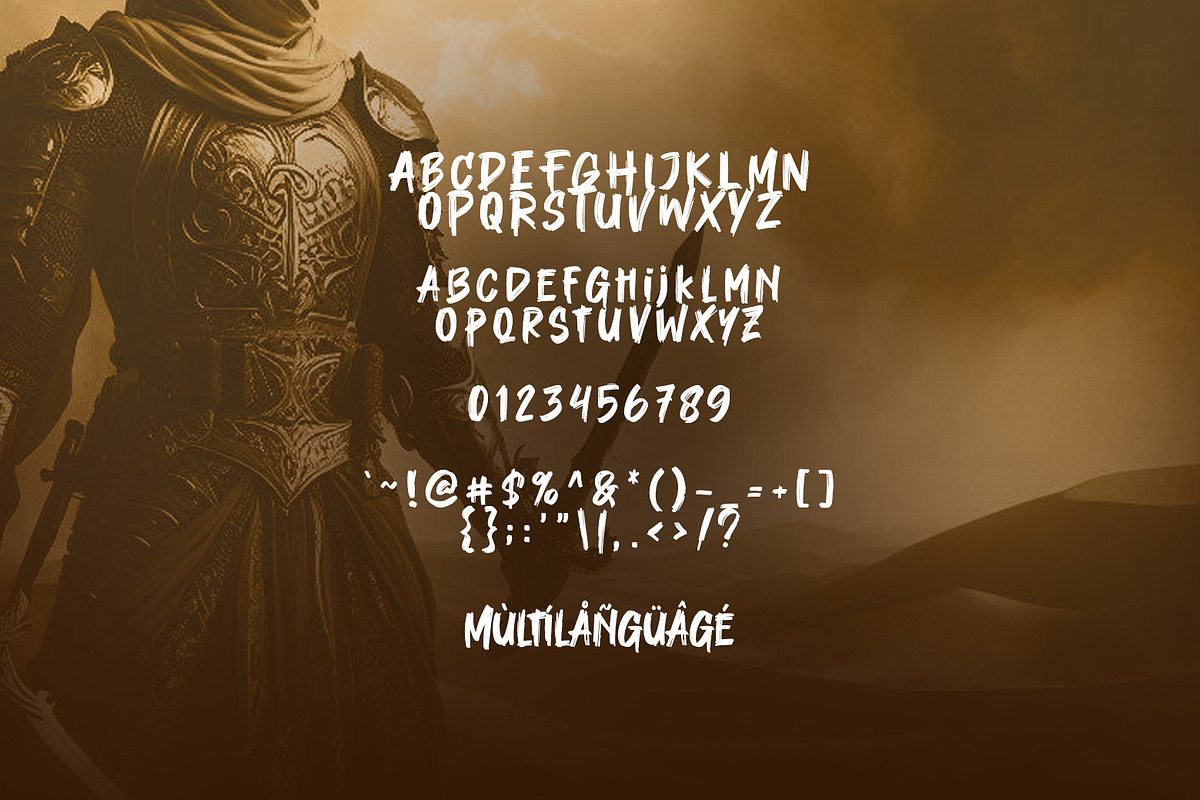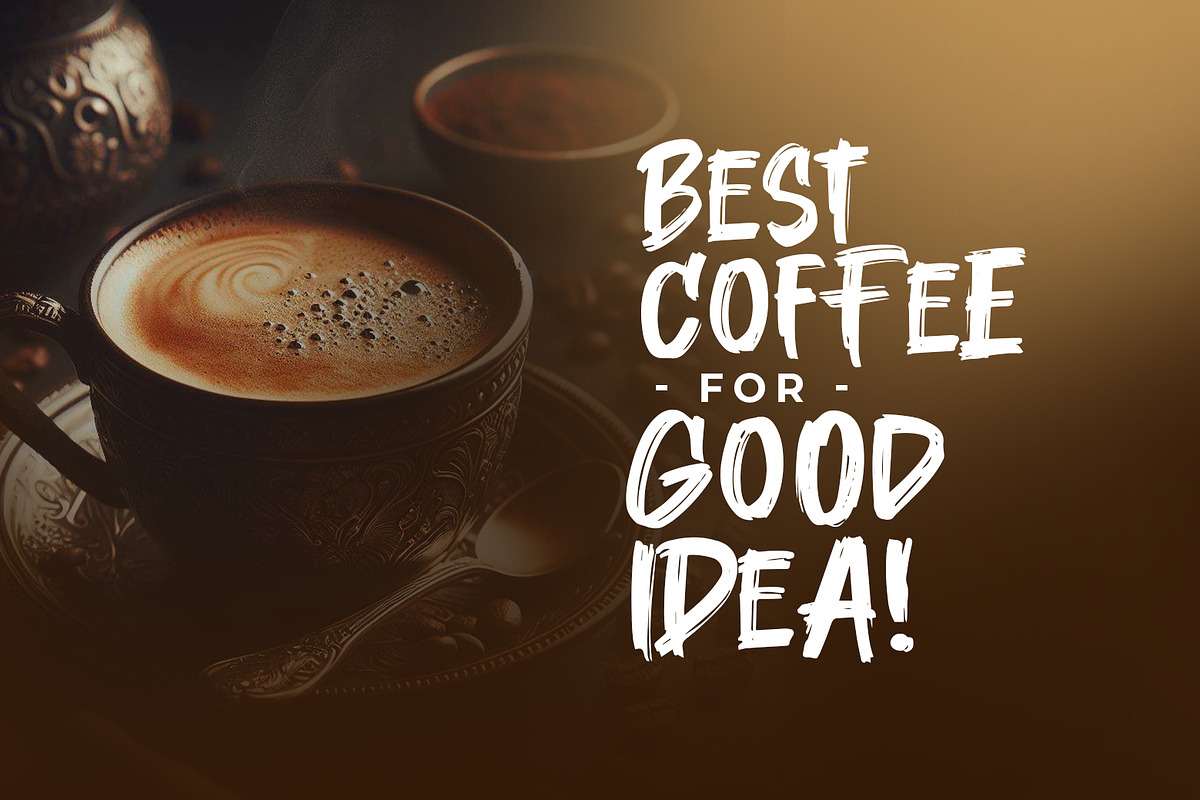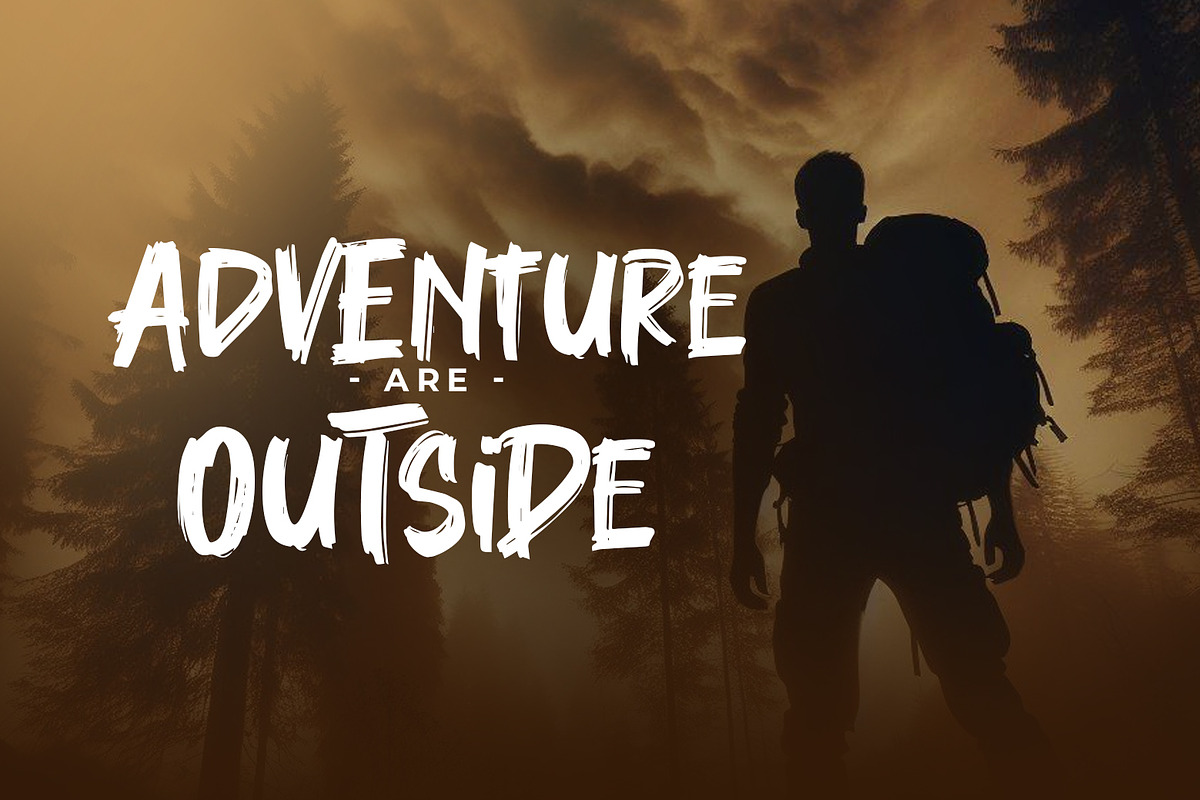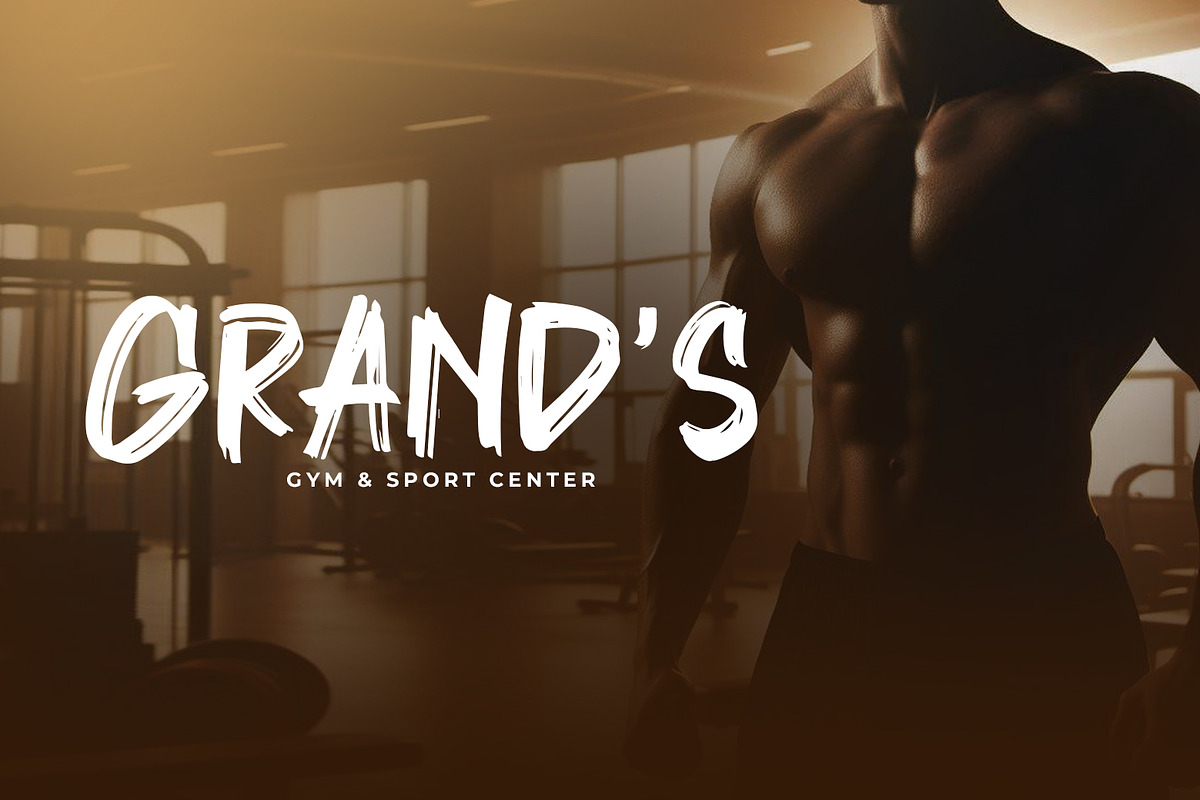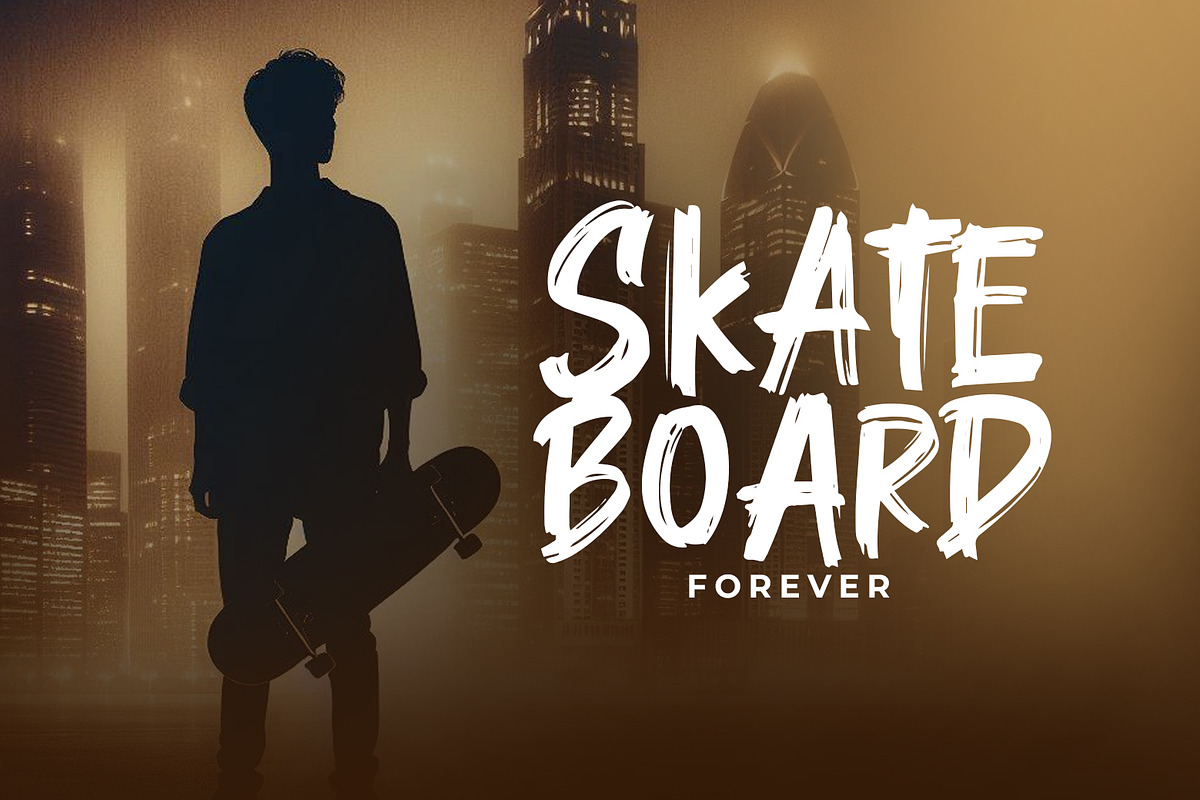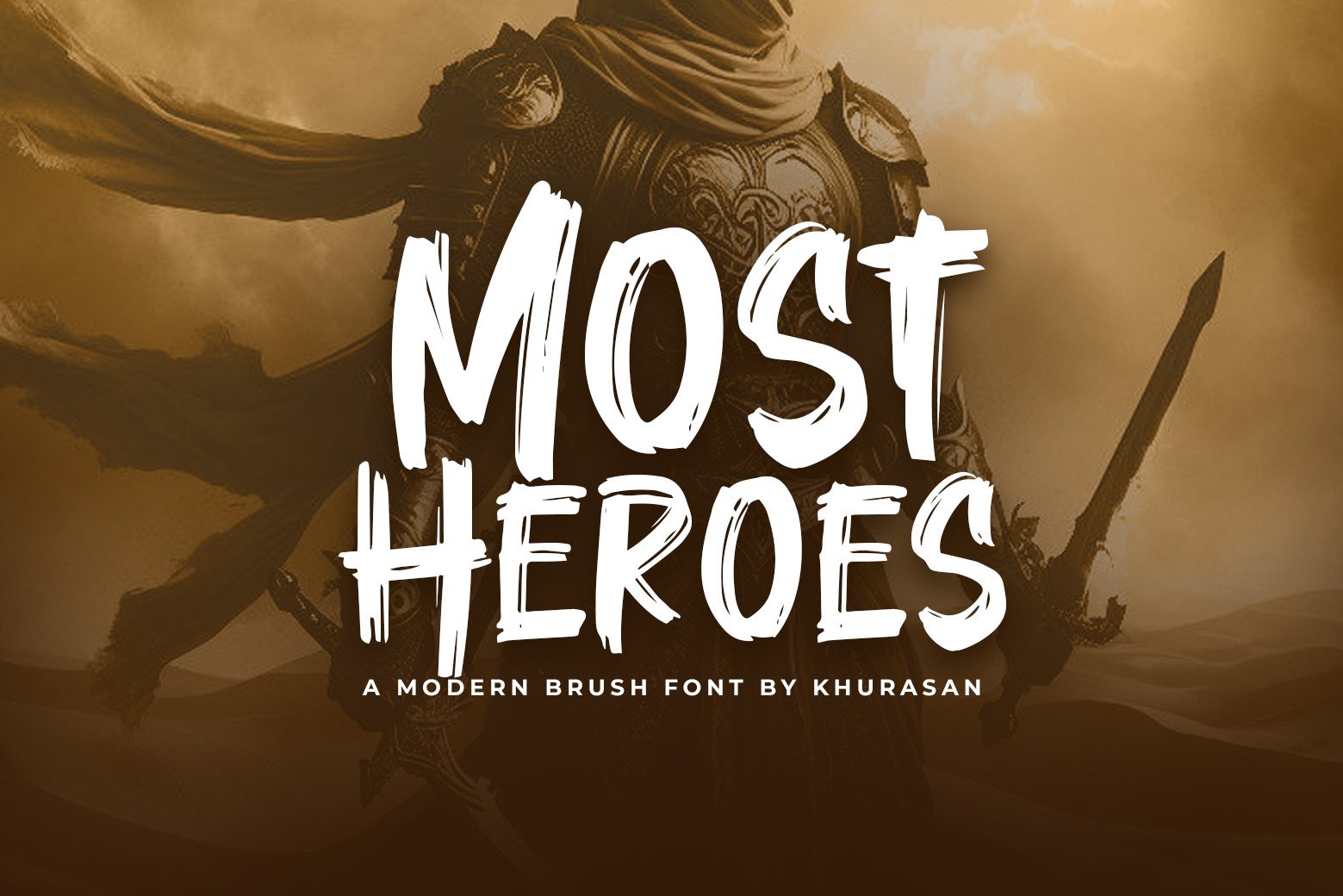
Most Heroes Brush Font
Most Heroes is a modern brush font. Most Heroes font suitable for logo, branding, greeting card, poster and any design that you create…!